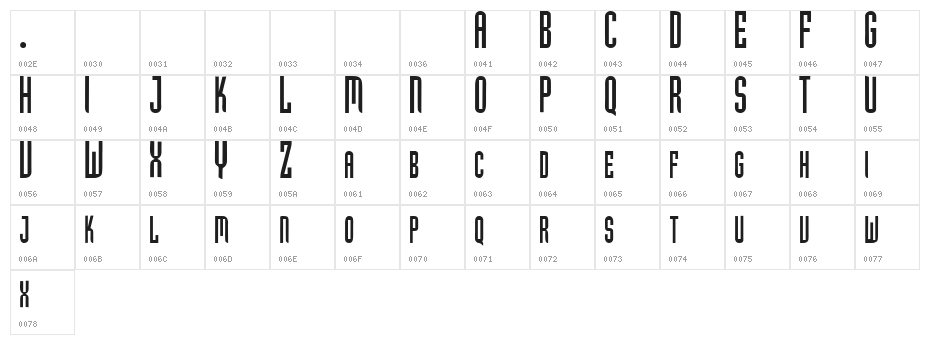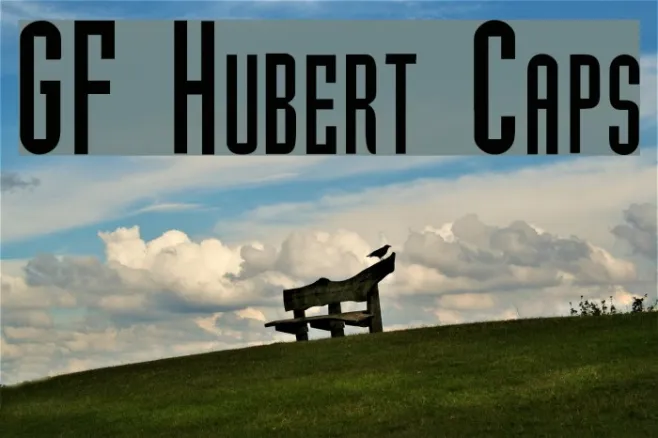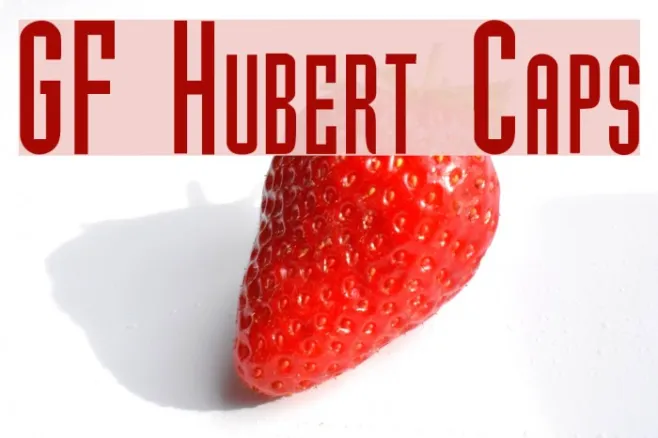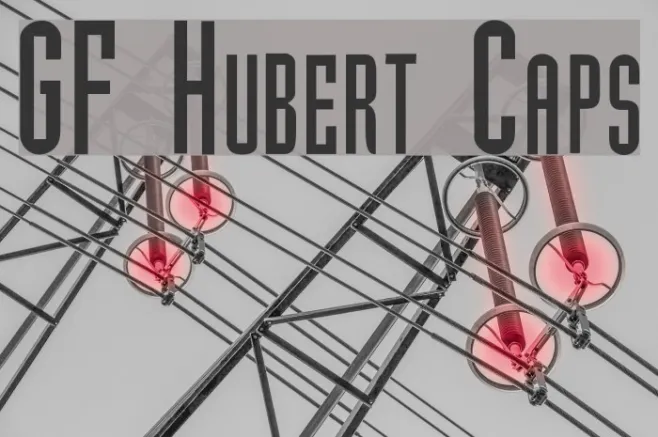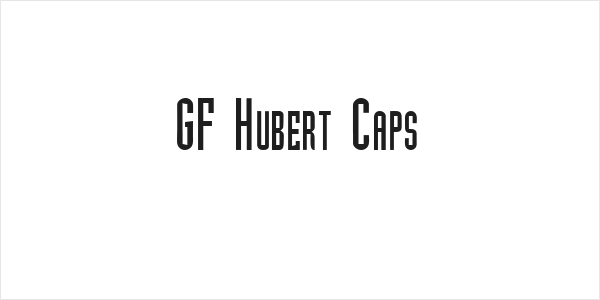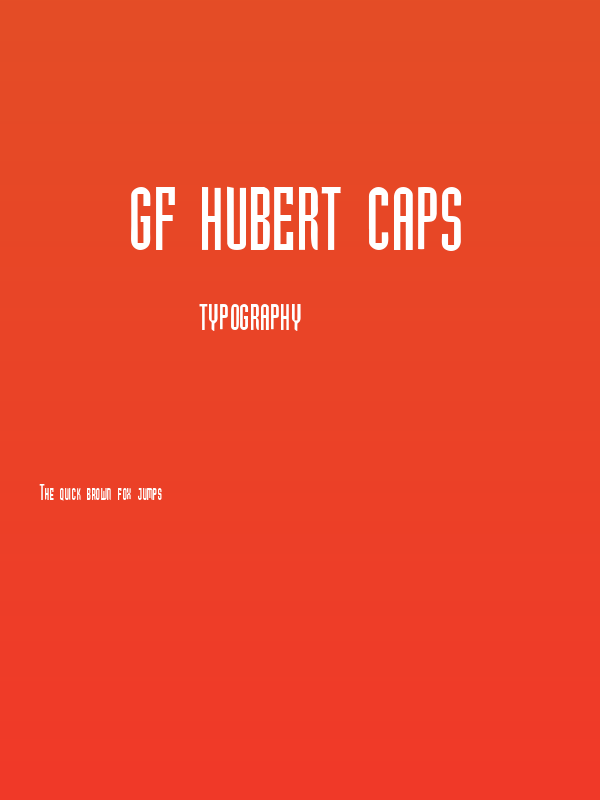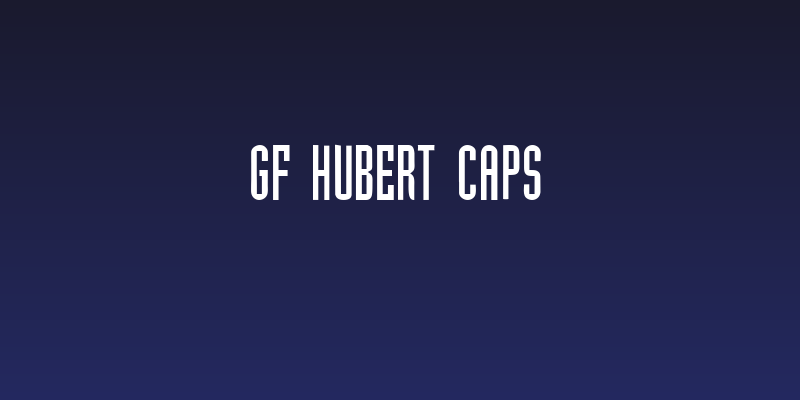
GF Hubert Caps Font
GF Hubert Caps Description
This font features a bold and impactful design with tall, narrow characters that convey a sense of strength and modernity. The uppercase letters are particularly elongated, giving the font a distinctive vertical emphasis. The strokes are consistent in width, providing a uniform appearance that enhances readability while maintaining a unique style. The absence of lowercase letters and the inclusion of only uppercase characters suggest a focus on display purposes. The font's geometric structure and clean lines make it suitable for contemporary designs, where a strong visual presence is required.